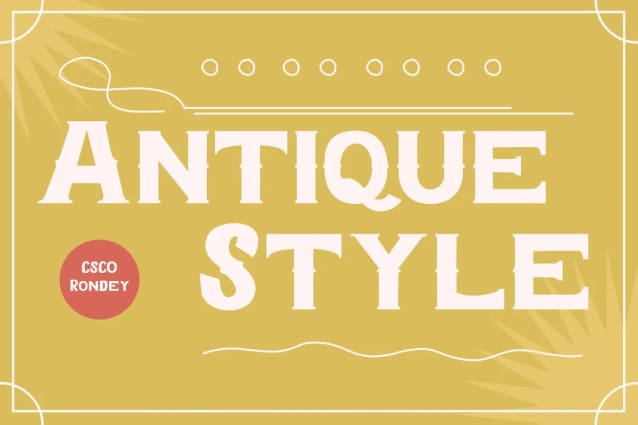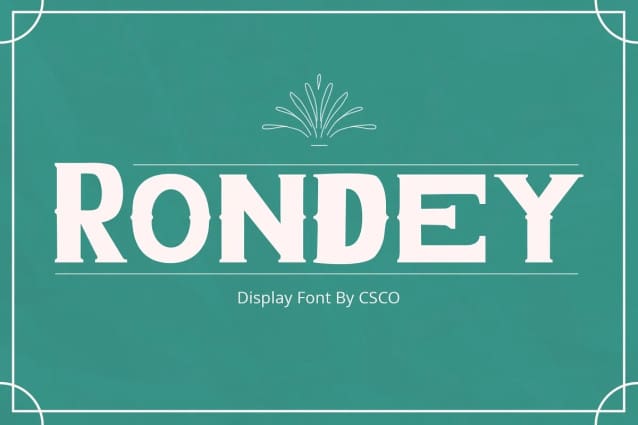
Rondey Vintage Font
Rondey Vintage Font is a captivating Display Font that combines bold serifs with a unique twist, making it ideal for display purposes.
Rondey’s design exudes an elegant charm that’s perfect for grabbing attention in various display contexts.
Moving beyond its captivating elegance, Rondey’s versatility shines through, allowing it to seamlessly complement a wide range of creative projects.
Rondey ensures that your content is not only captivating but also memorable. It leaves a lasting and distinctive impression that sets it apart.
In summary, Rondey Vintage Font is a font designed to captivate in the world of display typography. Its unique twist on bold serifs adds an elegant touch to your projects. Whether it’s for branding, posters, or a myriad of creative endeavors, Rondey’s versatile and captivating design caters to a broad readership, ensuring your content leaves a memorable and distinctive mark.